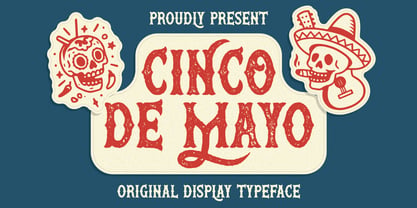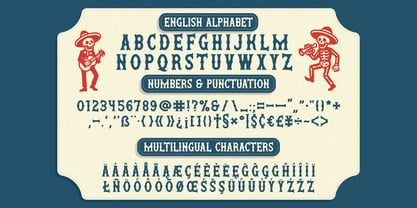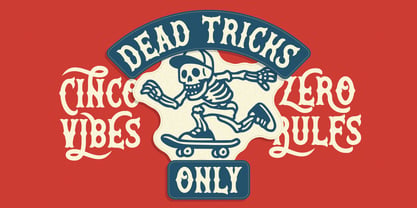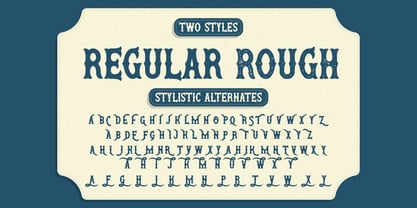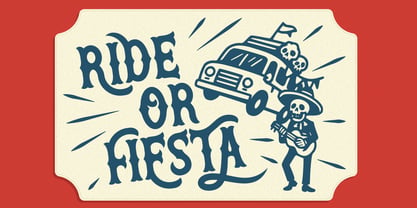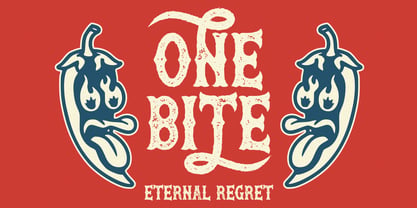
Cinco De Mayo
The Cinco De Mayo Font Family was designed by Oleg Voznyy and published by Vozzy. Cinco De Mayo contains 2 styles and family package options. More about this family
Introducing the captivating font "Cinco De Mayo," designed specifically for headlines and accent inscriptions that demand attention. This unique typeface features an extensive range of characters, punctuation marks, and multilingual options, making it versatile for various design projects. With a wealth of standard ligatures, ensure your software supports this OpenType feature to fully utilize its capabilities. "Cinco De Mayo" will enhance your stunning designs, making them stand out with flair and creativity.